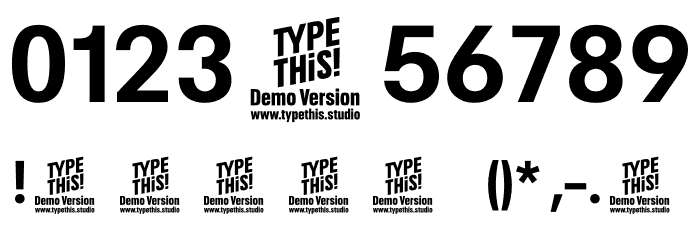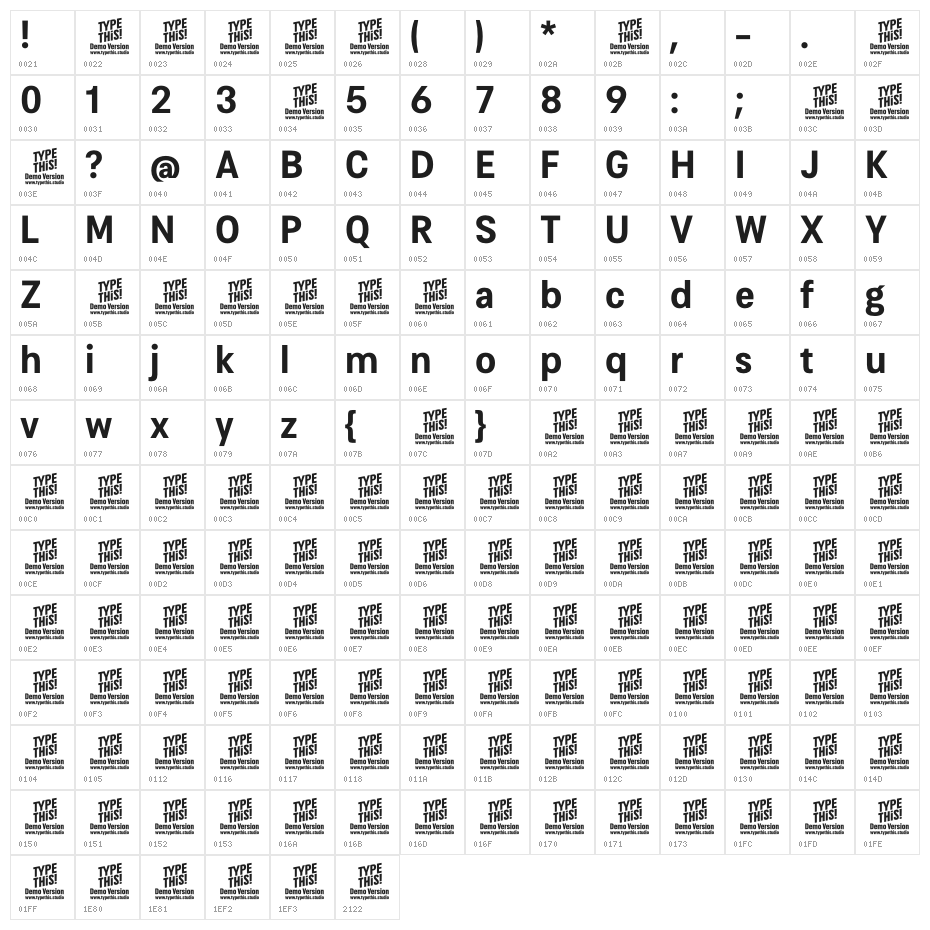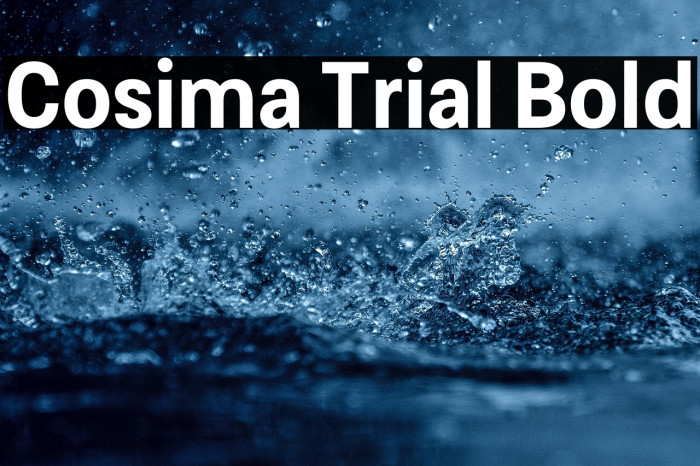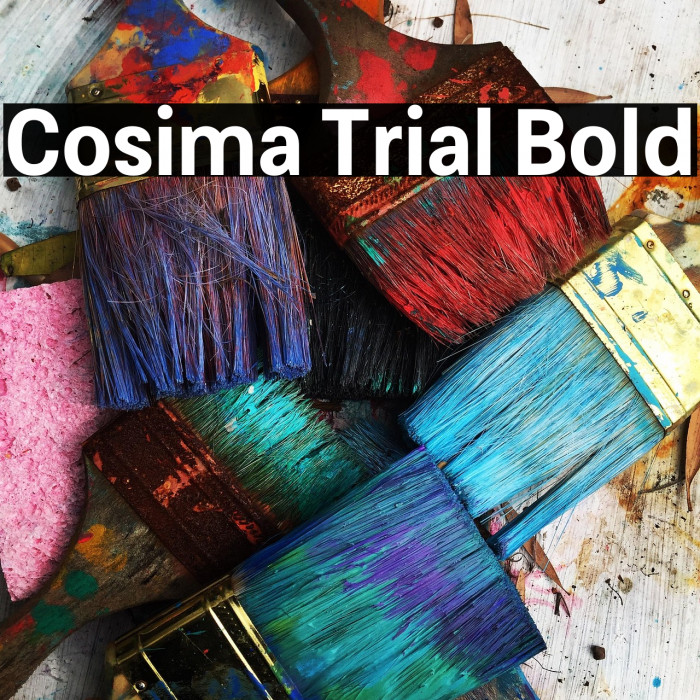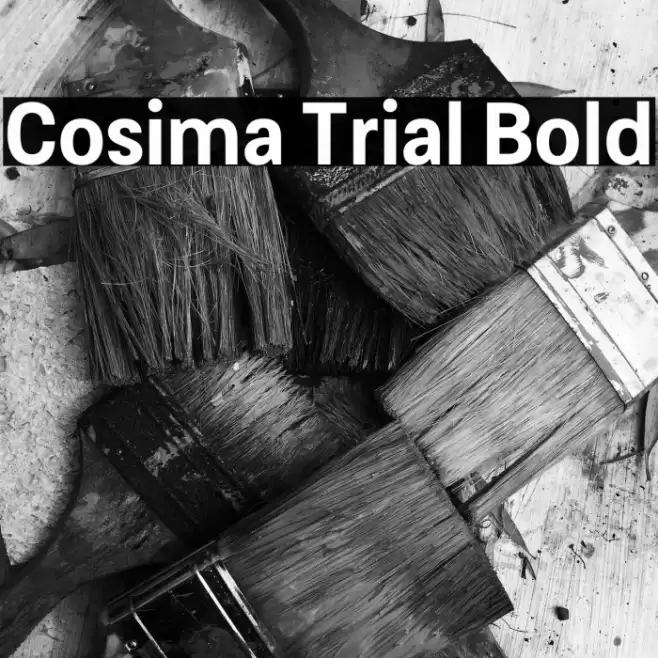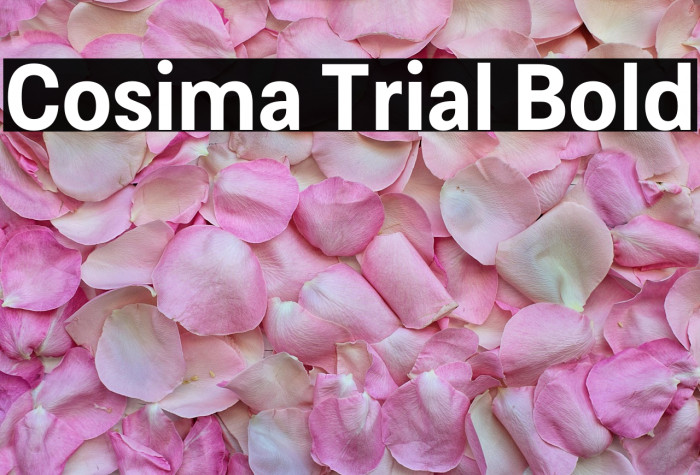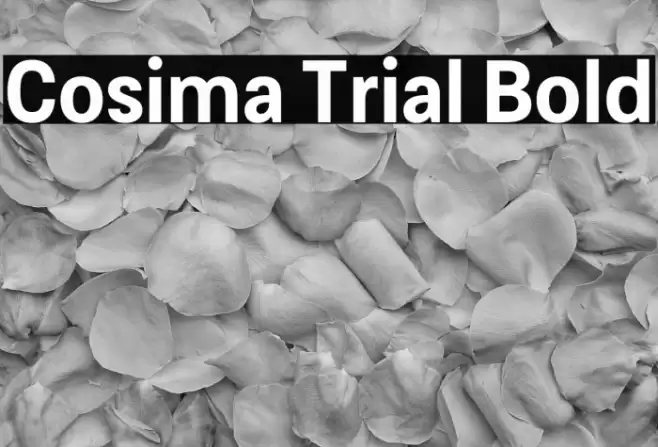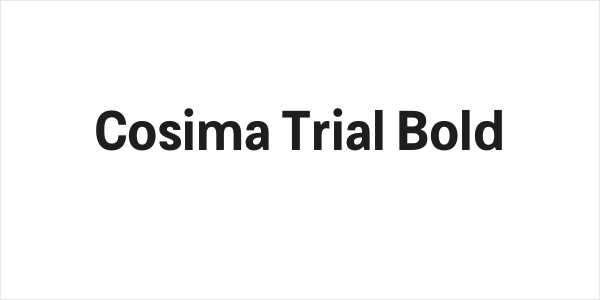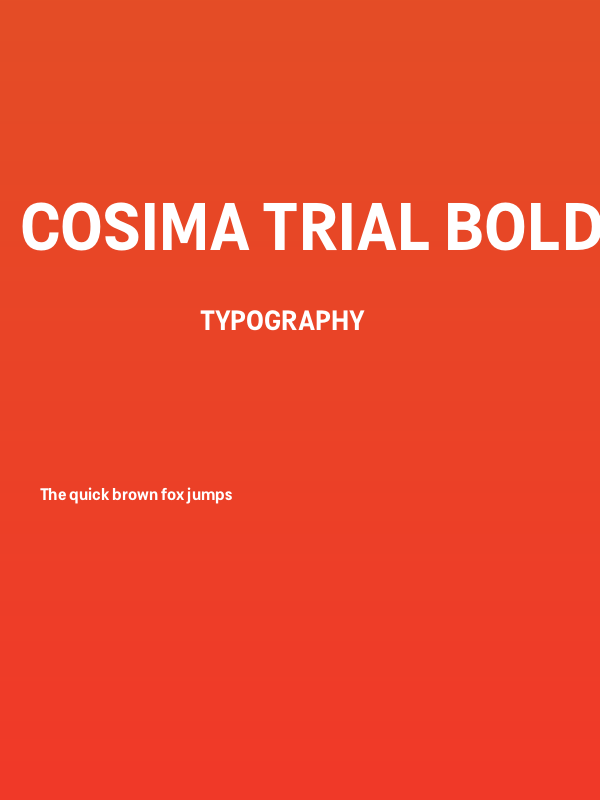
Cosima Trial Bold Font
Cosima Trial Bold Description
This font exhibits a bold and modern sans-serif style, characterized by clean and uniform strokes that convey a sense of clarity and strength. The uppercase and lowercase letters maintain a consistent height and width, providing a balanced and harmonious appearance. The numerals are equally bold, ensuring readability and impact. The special characters are designed with the same attention to detail, making them suitable for various applications. The overall design is straightforward yet impactful, making it ideal for projects that require a strong visual presence.